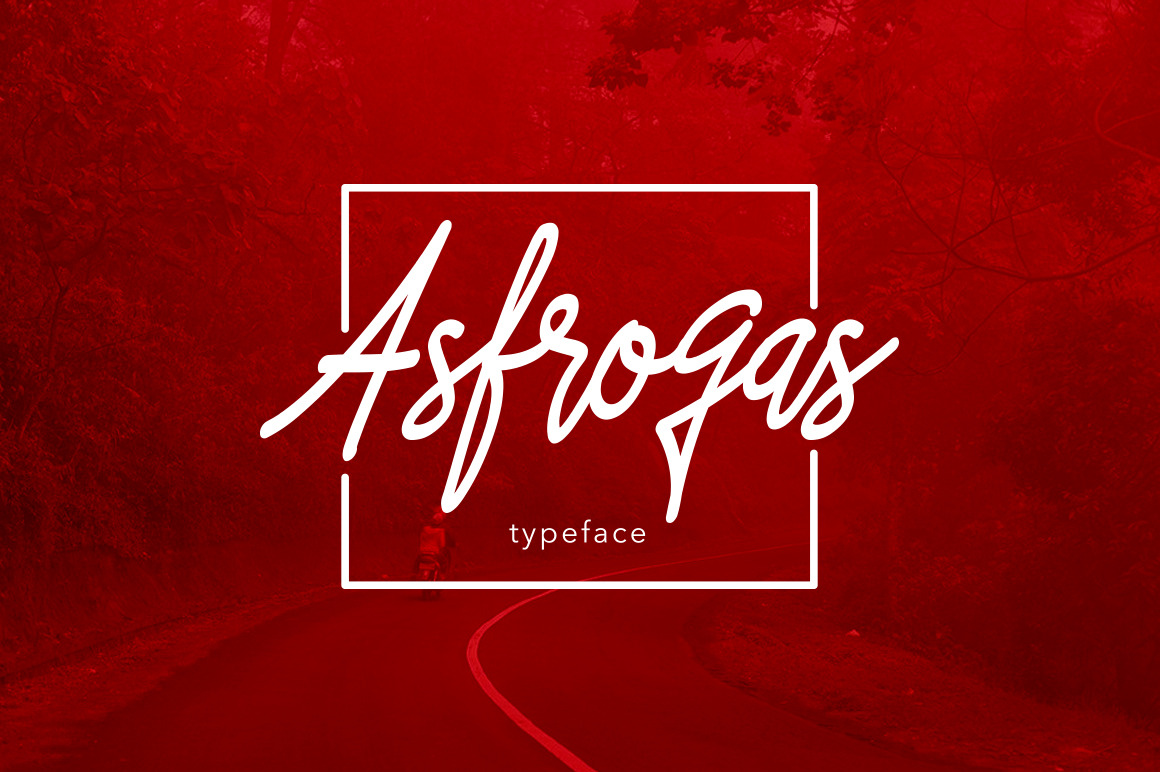
Asfrogas Typeface
introducing Asfrogas typeface using style hand writing. This font type is suitable for designs that have friendly concepts and little has particularly stubborn character.